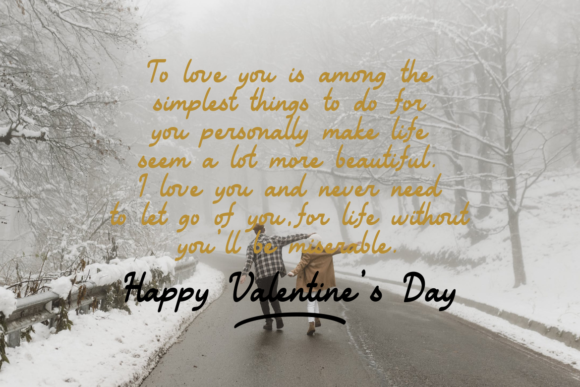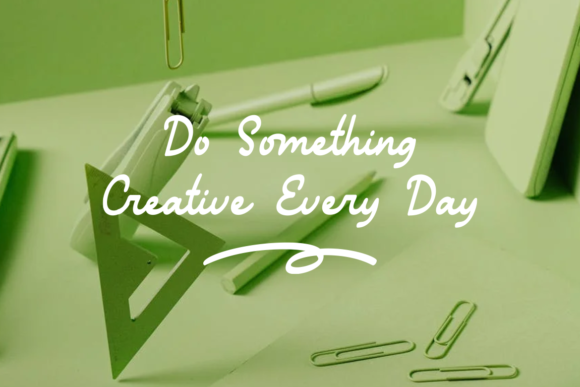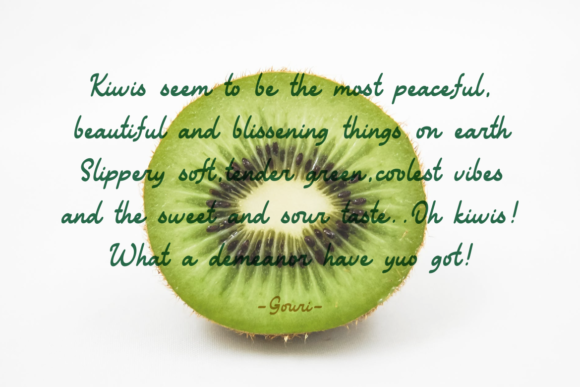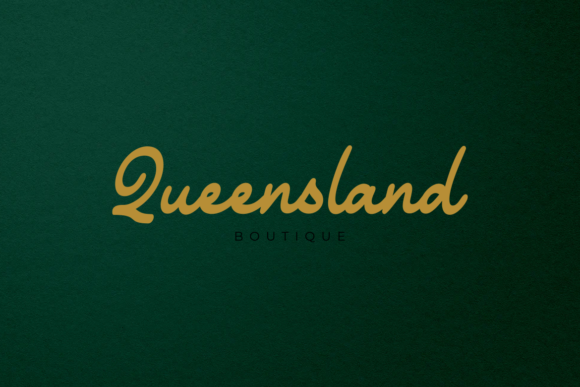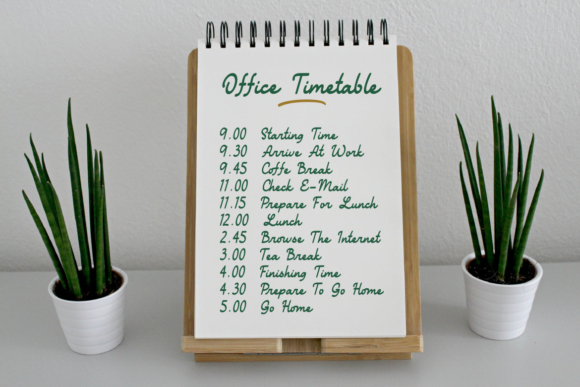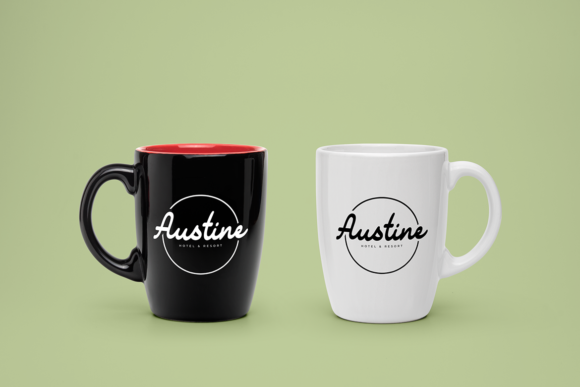
Introduction to Good Day Script Font
Good Day Script is a beautiful script font.
It is suitable for all your design project needs such as: logo design, branding, covers, posters, magazines, wedding invitations, greeting cards, quotes and more .
Key Features of Good Day Script Font
Why Choose Good Day Script Font?
Good Day Script Font offers exceptional quality and versatility, making it a valuable addition to your design toolkit. Whether you’re creating for personal projects or commercial use, Good Day Script Font delivers professional results.